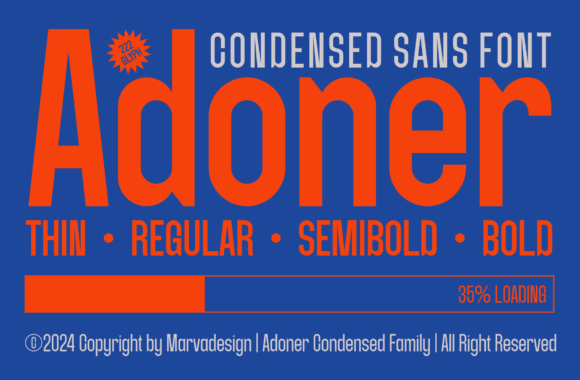
The Perfect Blend of Style and Function: Introducing Adoner Font
Imagine you’re working on a new project, and you’re stuck trying to find the perfect font to convey your message. You’ve scrolled through countless options, but nothing seems to capture the essence of your design. That’s when you stumble upon Adoner Font – a game-changing typography solution that elevates your creations to the next level.
Adoner Font is a sleek, contemporary design that exudes confidence and sophistication. Its compact form and sans serif style make it the perfect choice to attract attention and bring a modern feel to your designs. Whether you’re working on titles, websites, posters, or magazines, Adoner Font is an invaluable asset for designers looking to make a lasting impression.
Adoner Font Key Features
- Font Family: Adoner Font is a modern sans-serif font designed for digital and print use. It is available in multiple weights, including light, regular, medium, bold, and black.
- Character Set: Adoner Font supports a wide range of languages, including Latin, Cyrillic, and Greek alphabets.
- Unique Characteristics: Adoner Font features a clean and minimalist design with subtle rounded edges and a strong x-height, making it highly legible in both digital and print media.
Review of Adoner Font
As a designer, I’ve had the chance to work with various fonts, and Adoner is one of the more interesting ones I’ve come across. Here are my thoughts on what works well and what doesn’t.
- Adoner has a unique, modern aesthetic that’s perfect for branding and creative projects. Its clean lines and geometric shapes give it a sophisticated feel.
- The font is highly legible, even at smaller sizes, making it ideal for digital applications like web design and mobile apps.
- The font family is relatively large, with multiple weights and styles to choose from, giving designers plenty of options for customization.
- Adoner can feel a bit cold and unapproachable, which might not be suitable for projects that require a warmer, more friendly tone.
- The font may not be as versatile as some other options, making it less suitable for projects that require a wide range of font styles.
- The font’s geometric shapes can make it difficult to read for those with visual impairments.
Overall, Adoner is a solid choice for designers who want a modern, legible font with a unique aesthetic. While it may not be the best fit for every project, it’s definitely worth considering for branding and creative projects that require a sophisticated feel.
Adoner Font Practical Application Guide
Tips for Getting the Most Out of Adoner Font
For optimal results, use Adoner Font in combination with bold or italic text to create visual hierarchy and emphasis. You can also experiment with different font sizes and colors to enhance the overall design.
Adoner Font is ideal for use in branding, packaging, and advertising designs where a unique and elegant font is required. It is also suitable for use in digital products such as apps, websites, and social media graphics.
Alternatives to Adoner Font
When to use: Headings, titles, and body text in modern and urban-themed designs.
Lato is a sans-serif typeface that is highly legible and versatile. It’s suitable for use in a wide range of contexts, from body text to headings and titles. Lato is more rounded and friendly than Adoner Font, with a softer and more approachable feel.
What is the recommended font size and line height for optimal readability with Adoner Font?
For optimal readability, we recommend using a font size between 12-14 points and a line height of at least 1.5 times the font size. This will ensure that the text is clear and easy to read, while also maintaining a visually appealing layout.